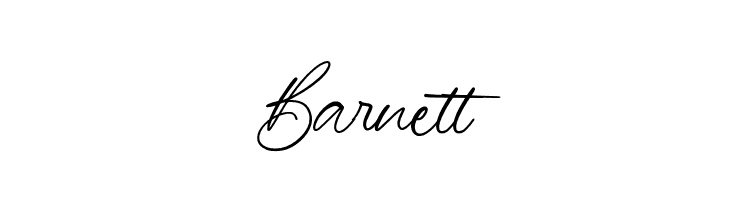
A sophisticated and elegant handwritten script font with fluid, connected letterforms.
An elegant, flowing script font with a classic, sophisticated appearance.